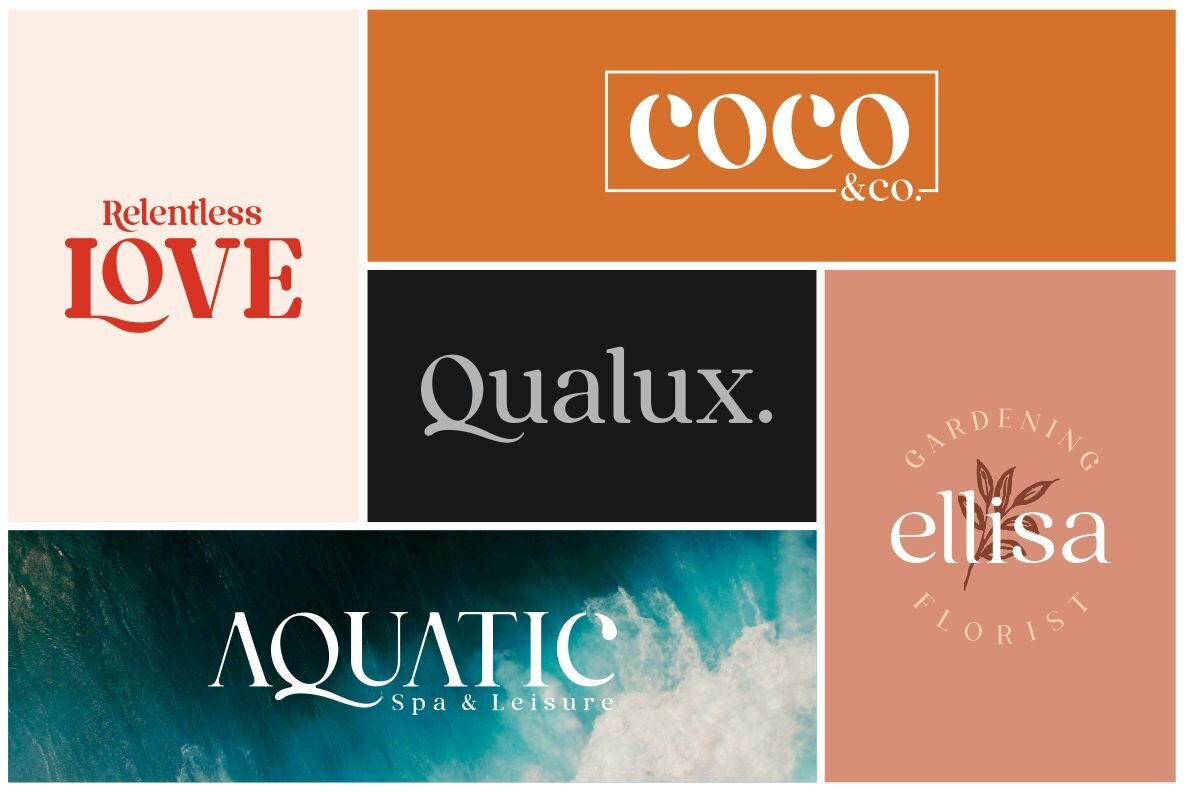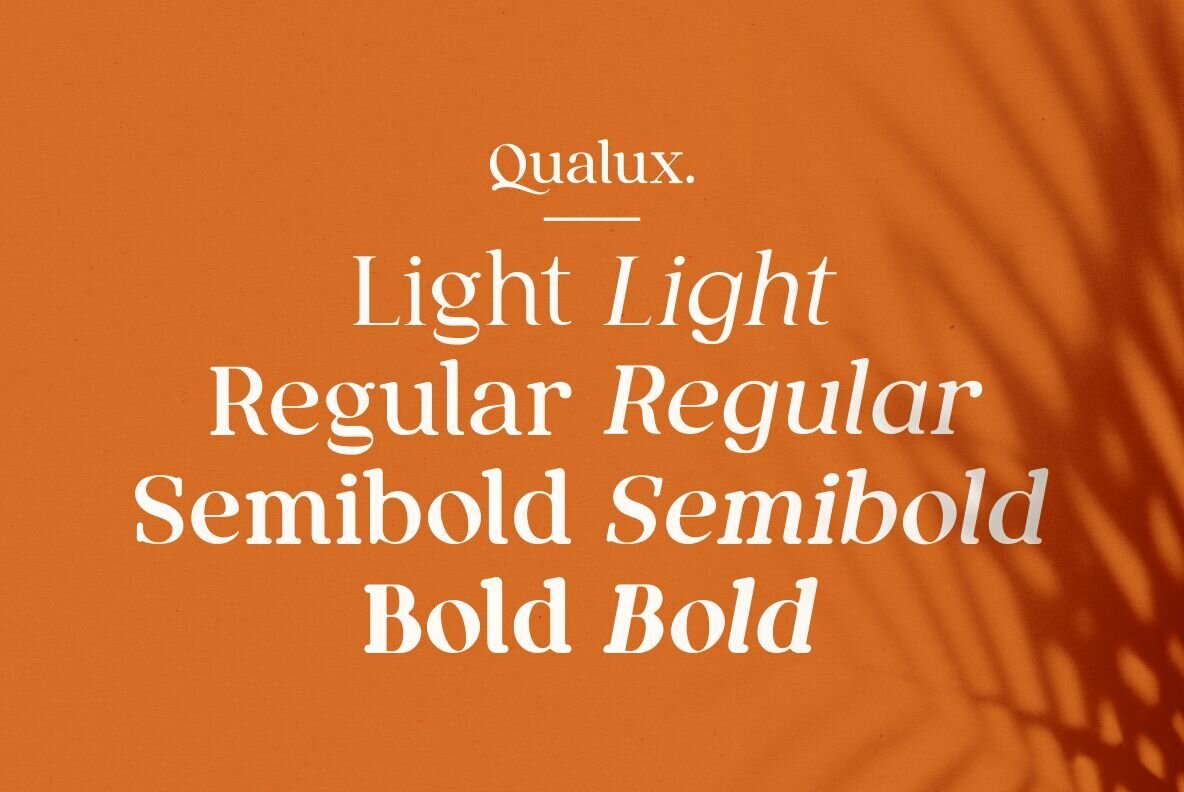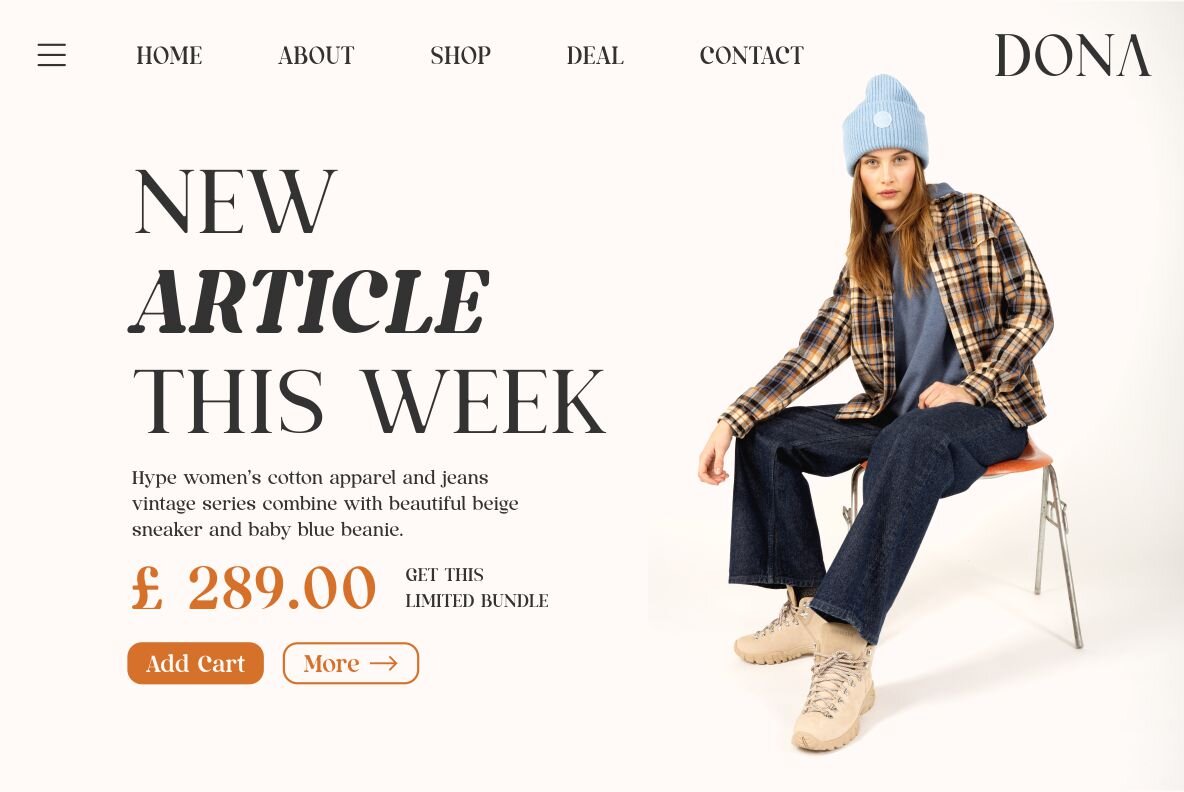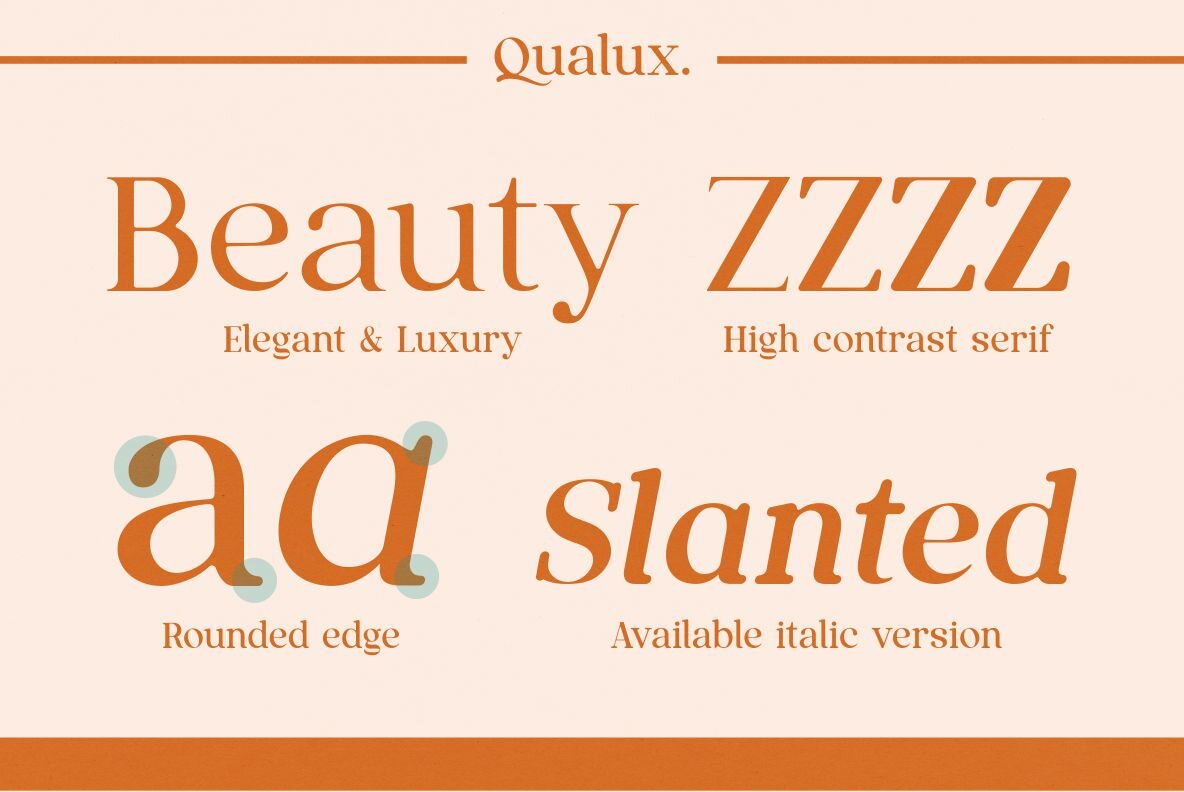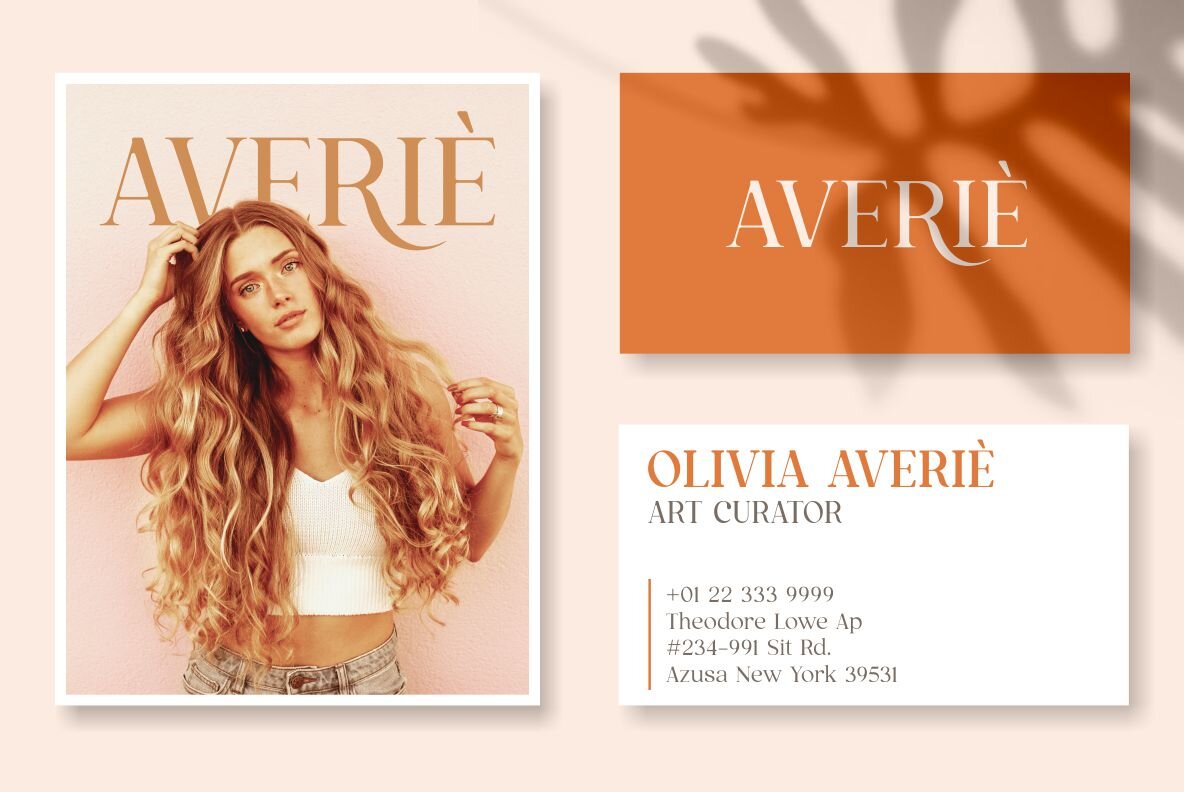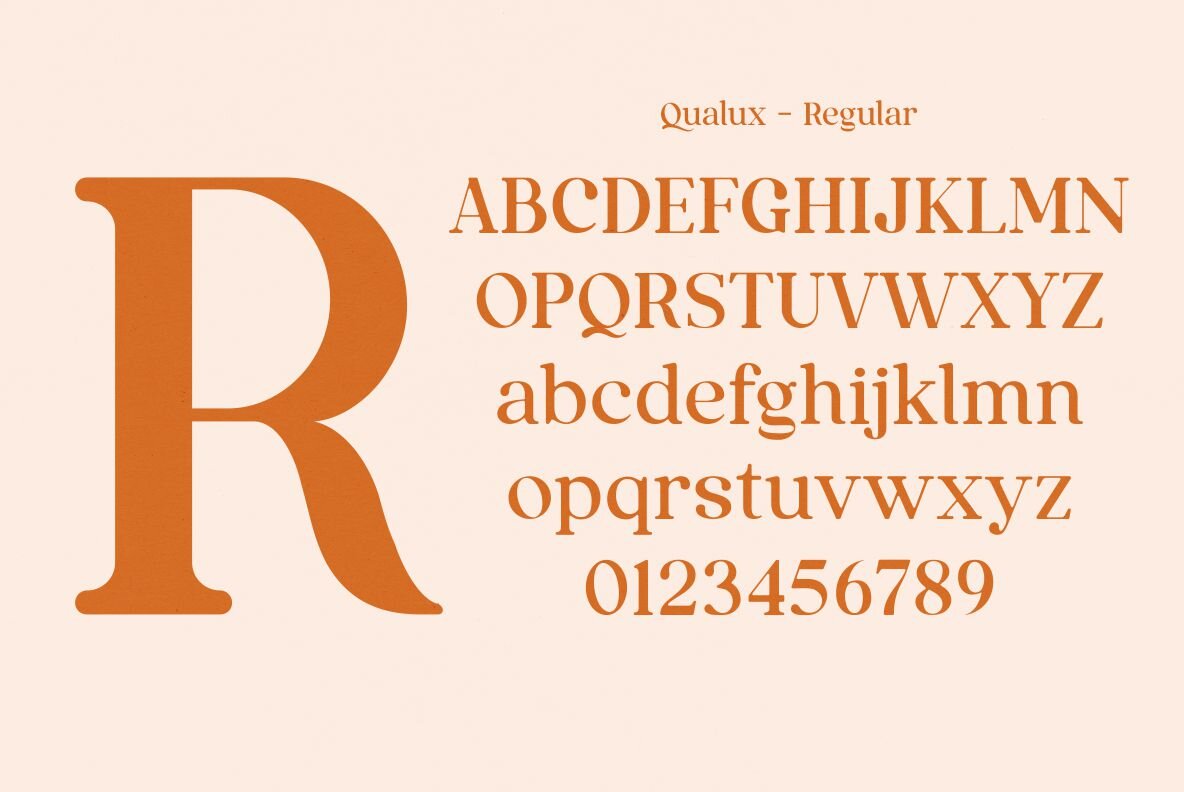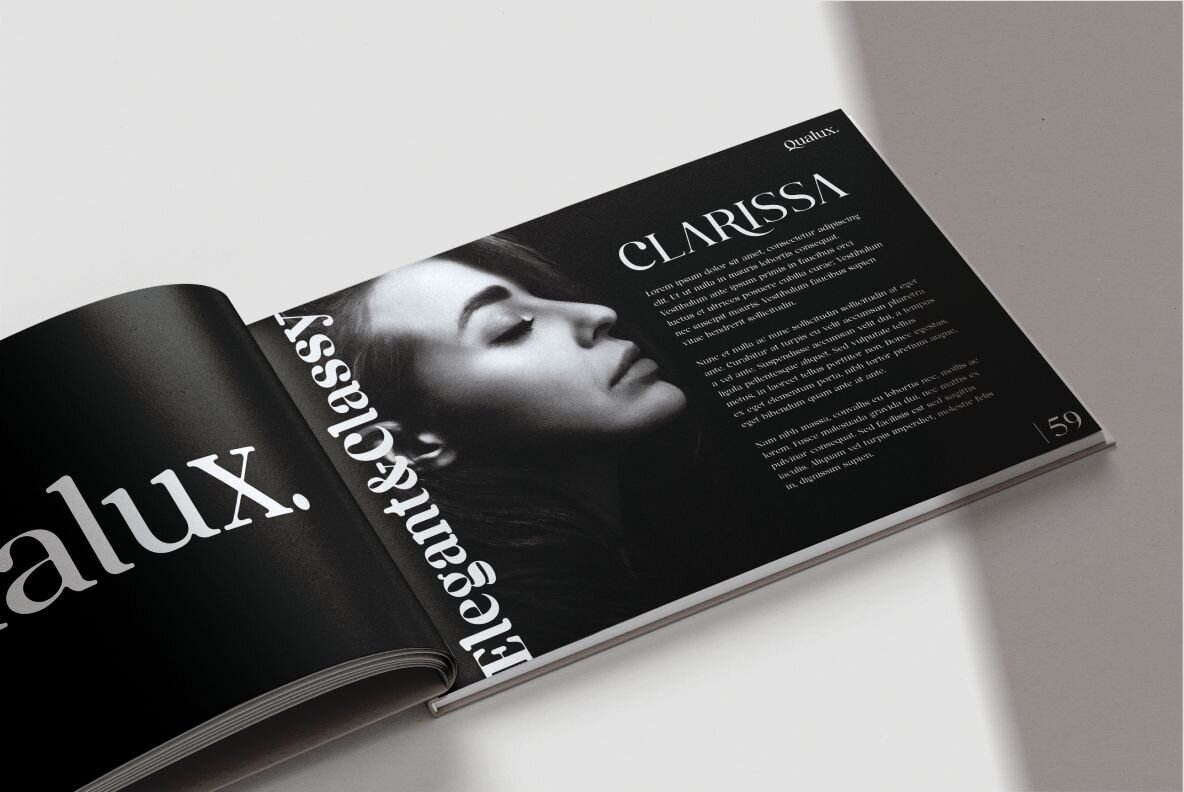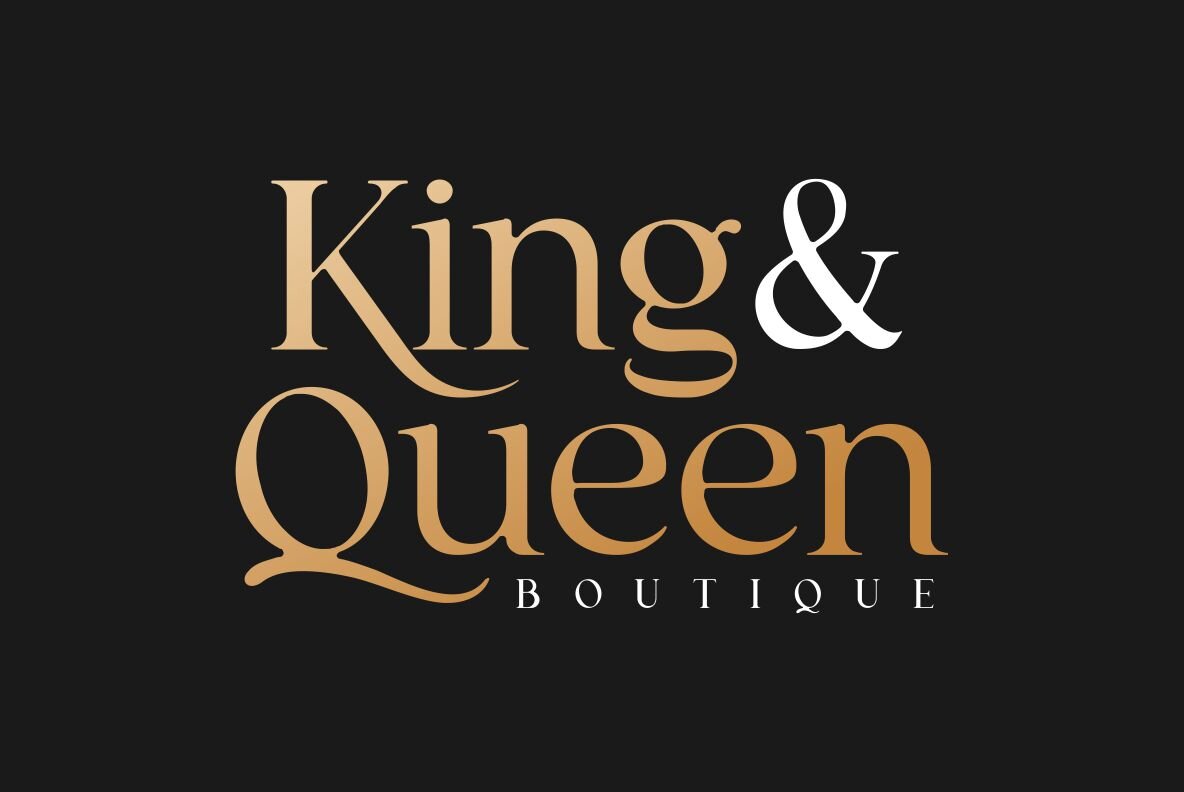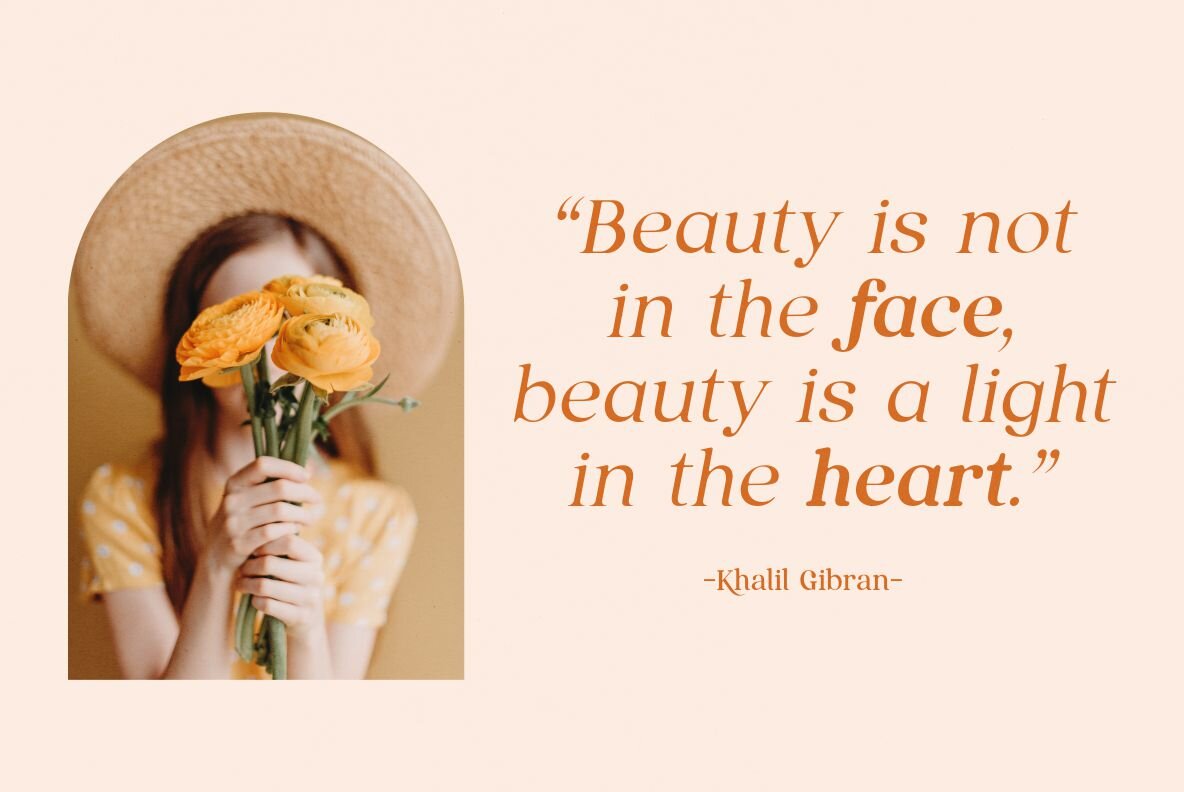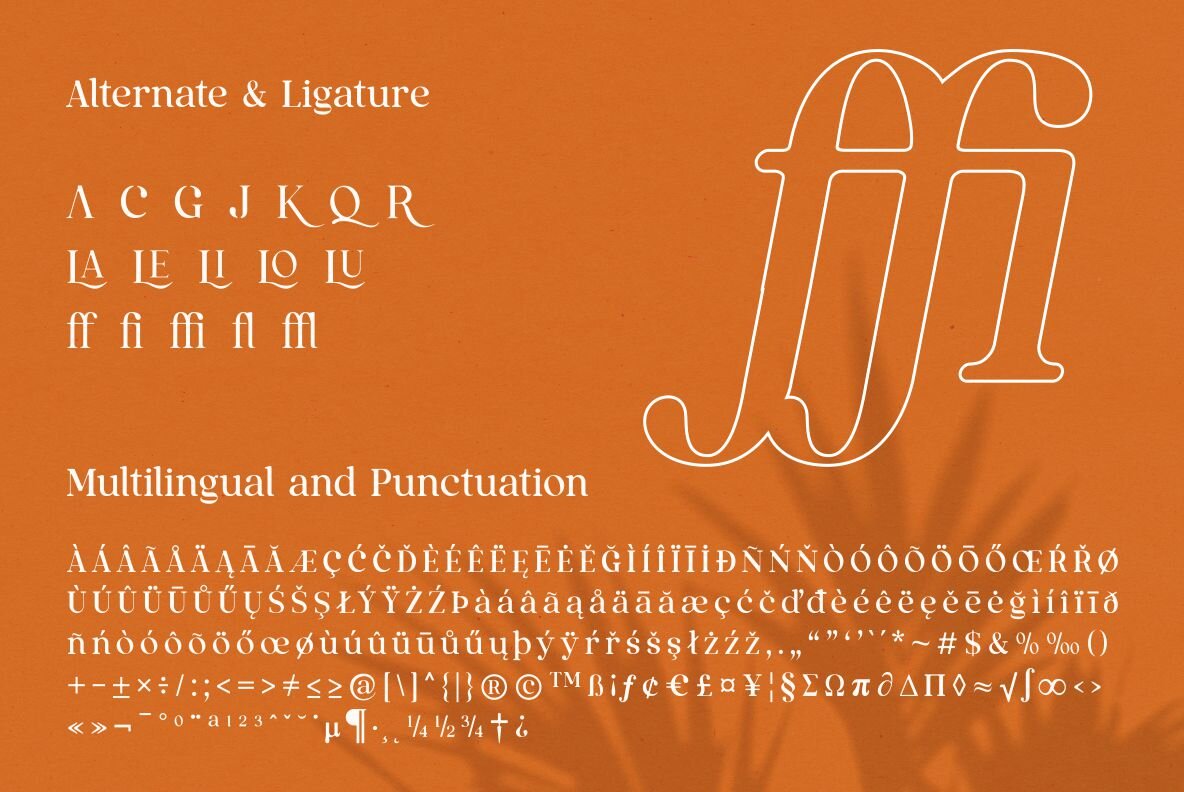
Qualux Font
Qualux is a versatile high-contrast serif font family. Qualux comes from the words Quality and Luxury. This font has vintage characteristics with a luxurious style in light, but also has a friendly and playful style in bold. Each glyph has a soft, rounded tip. This font is suitable for many various projects such as logos, branding, magazines, signage, fashion and many more.
Qualux consists of 8 styles: Light, Light Italic, Regular, Italic, Semibold, Semibold Italic, Bold and Bold Italic. These fonts feature Open Type Format (OTF), Kerning, Standard Glyph, Stylistic Alternate & Ligature, Numeral, Symbol and Multilingual Supports.